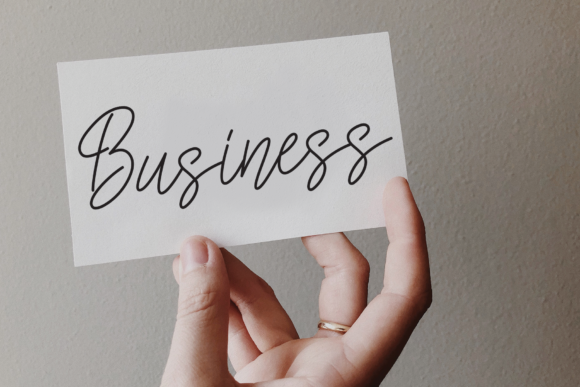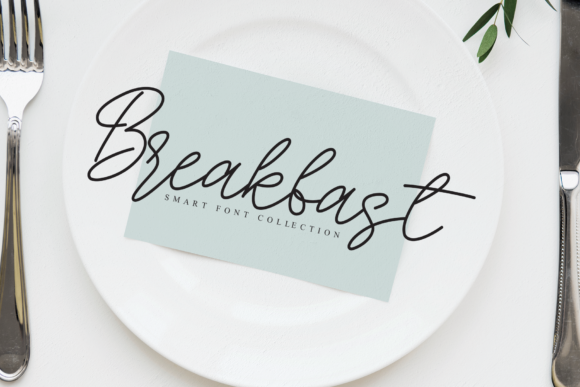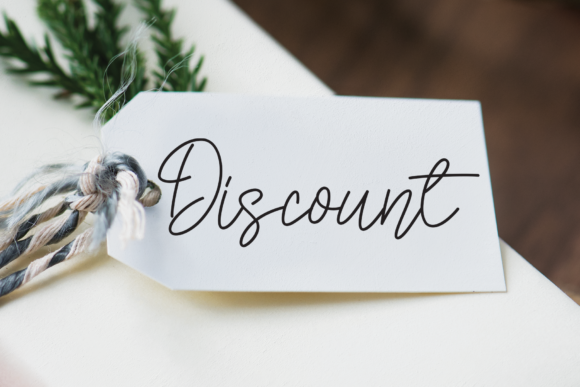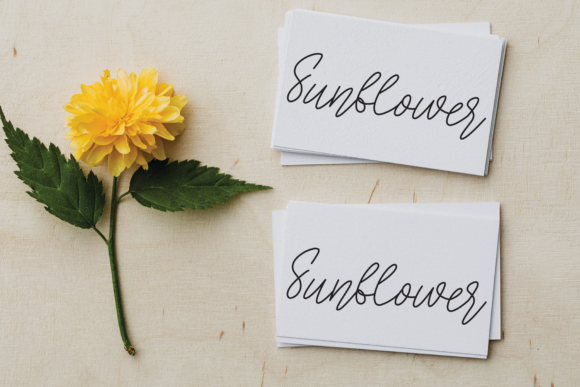
Introduction to Creative Workshop Font
Creative Workshop is a thin and flowing script font.
Add it to your most creative ideas and notice how it makes them come alive .
Key Features of Creative Workshop Font
Why Choose Creative Workshop Font?
Creative Workshop Font offers exceptional quality and versatility, making it a valuable addition to your design toolkit. Whether you’re creating for personal projects or commercial use, Creative Workshop Font delivers professional results.